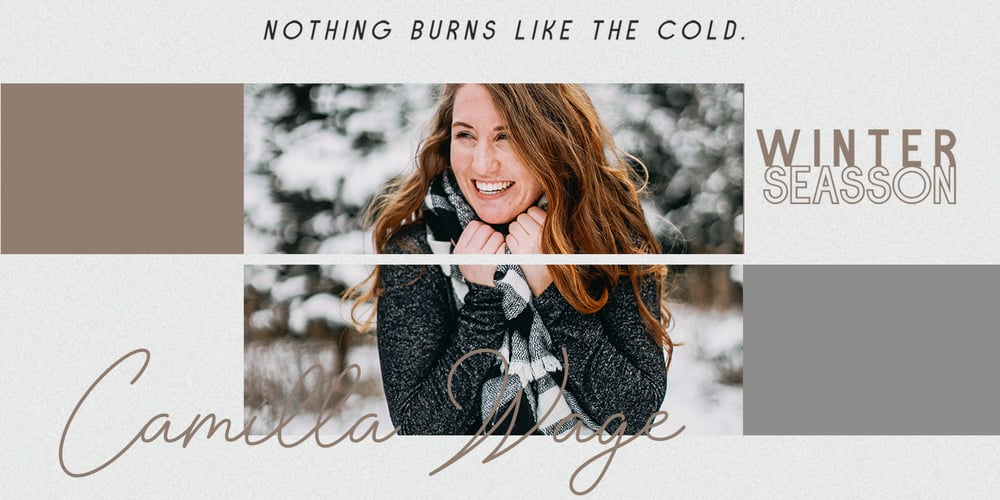
Insta Story
Insta Story font
Insta Story Font Family was designed by Winarno and published by Bluestudio. Insta Story contains 11 styles and family package options. Insta Story is a matching font family, consisting of a family of 10 sans serif font styles and paired with 1 script that we made to look like hand writing, so that it looks natural. Insta Story is perfect for all types of your business projects such as: logo design, business cards, greeting cards, magazines, newspapers, social media design, watermarks and more. Happy designing…! Thanks.